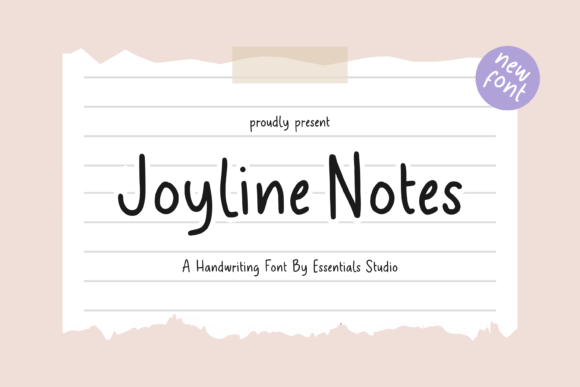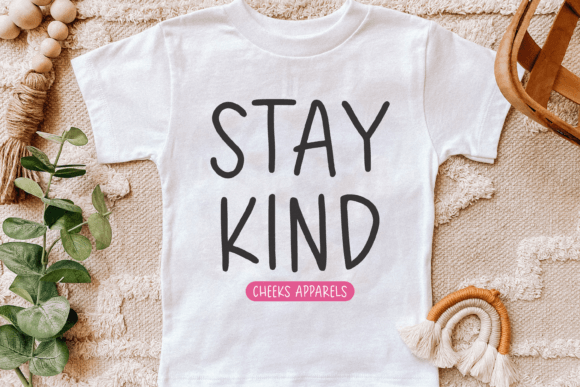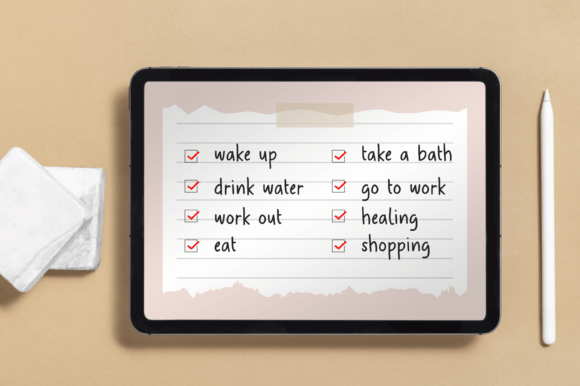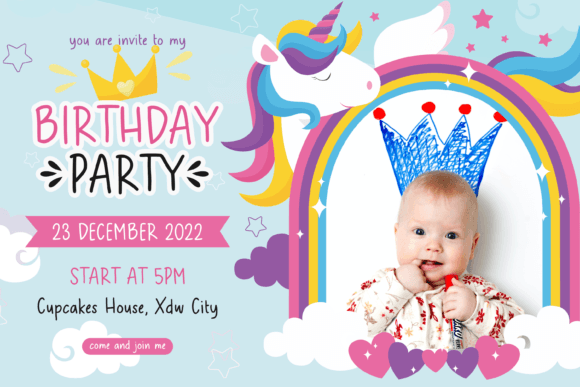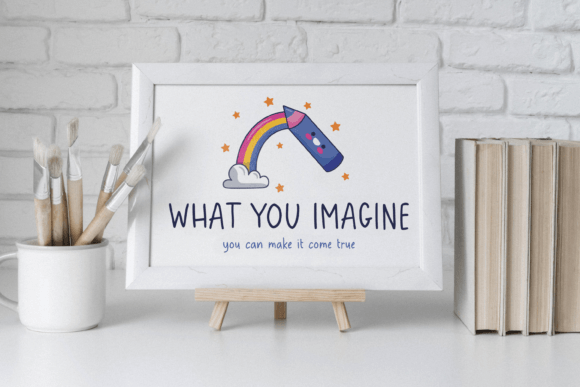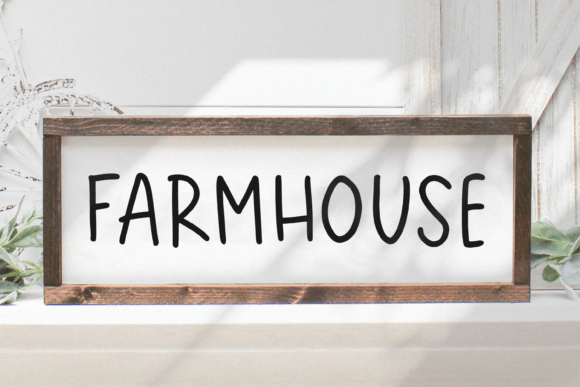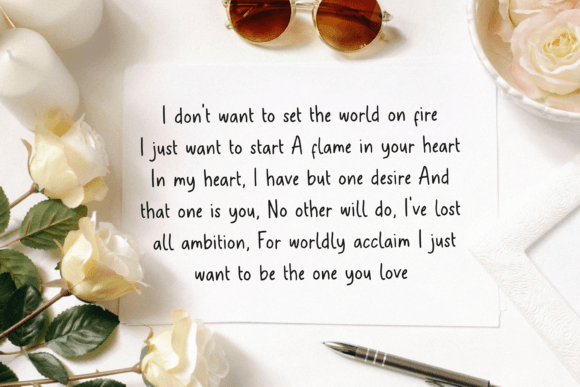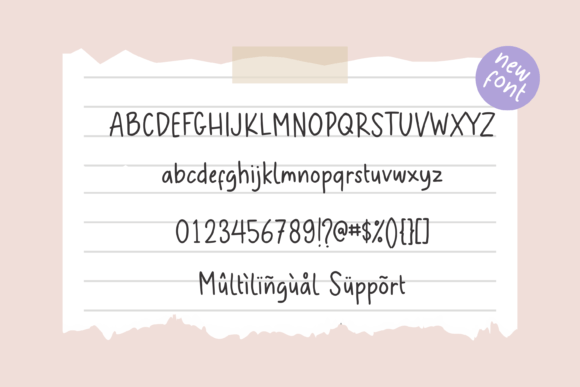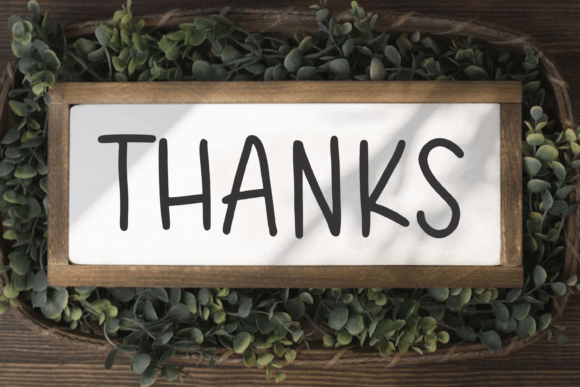
Joyline Notes Font
About Joyline Notes Font
Joyline Notes font is a beautifully crafted handwriting typeface designed to add a personal and elegant touch to your creative projects. This font is versatile and well-suited for a wide range of uses, from product packaging and branding to magazines, social media, and weddings. Its natural flow and charming style make it ideal for designers seeking to inject warmth and authenticity into their work.
Elegant Handwriting Style
The Joyline Notes font mimics the look of carefully penned handwriting, with smooth, flowing strokes and a balanced rhythm that brings a sophisticated yet approachable vibe. Its elegant curves and neat character shapes make it a standout choice for projects that demand a handcrafted and personalized feel. Whether used in headlines or body text, Joyline Notes offers readability combined with style.
Perfect for Branding and Packaging
This font shines in branding projects where individuality and charm matter. Use Joyline Notes on product packaging to give your goods a unique identity that resonates with customers looking for authenticity.
Ideal for Social Media and Weddings
Joyline Notes font is a great choice for social media creatives who want to connect emotionally with their audience. Its inviting and stylish handwriting style makes posts and stories visually appealing and engaging.
Versatility in Design Applications
From magazines to greeting cards and everything in between, Joyline Notes adapts effortlessly to various creative contexts. Its balanced design ensures it stands out on both digital and print media, making your text not only visually attractive but also memorable.
Why Choose Joyline Notes Font?
Choosing Joyline Notes font means opting for a handwriting typeface that balances elegance with versatility. It’s perfect for anyone looking to add a genuine, handcrafted flair to their designs without compromising professionalism. With Joyline Notes, your projects will communicate warmth, style, and personality effortlessly.